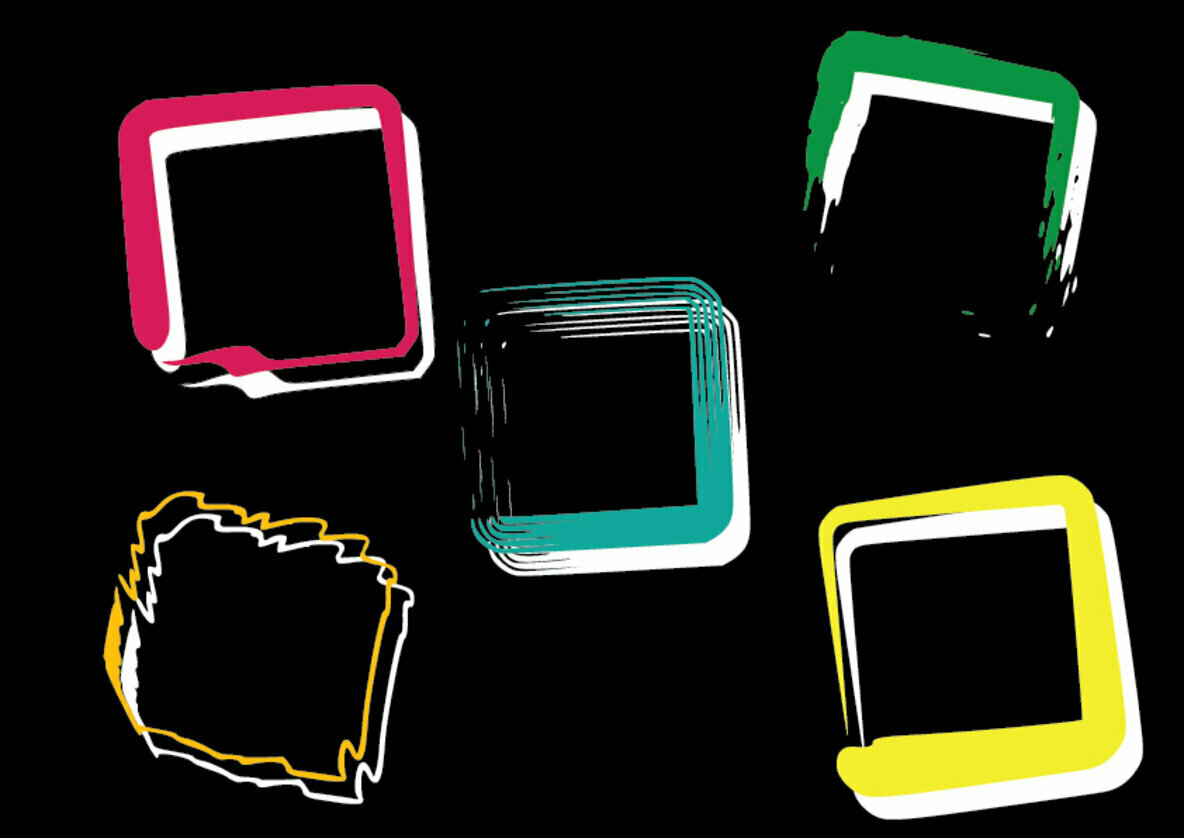
BM Graphics   Rounded Squares 1
BM Graphics - Rounded Squares is a stunning dingbats font that contains 81 Glyphs. Hand drawn and selected to be used it for any design project that requires a personalized appearance!